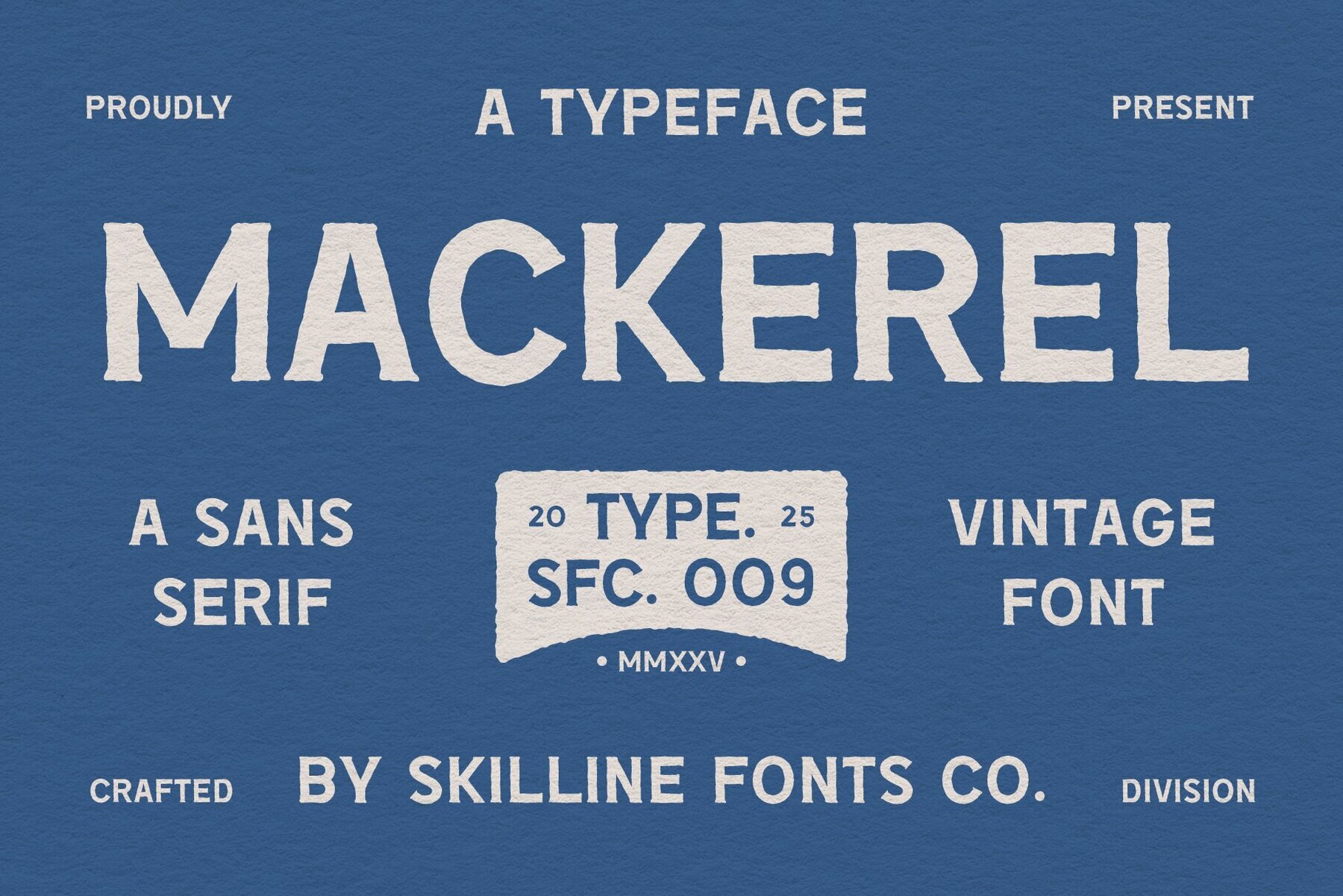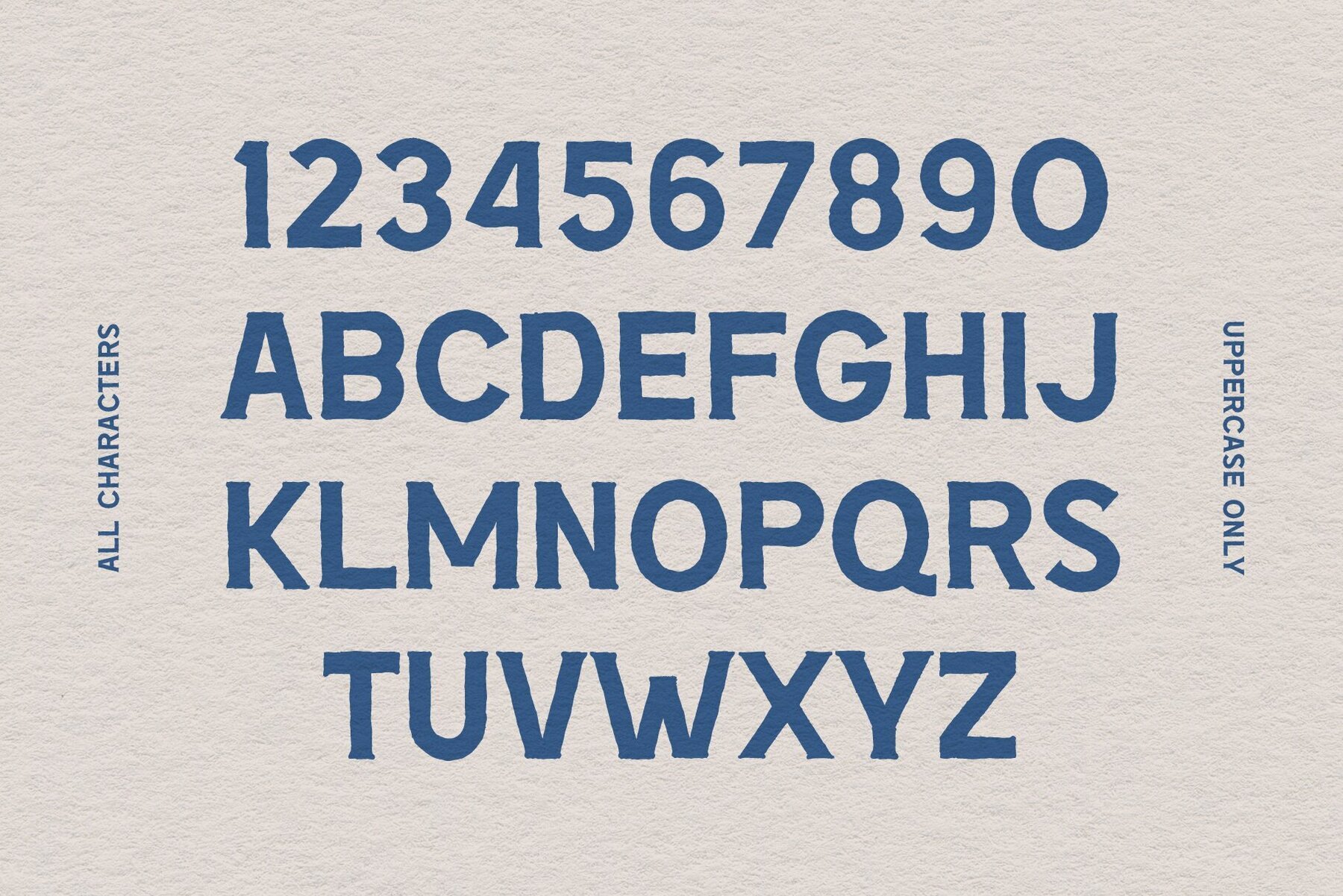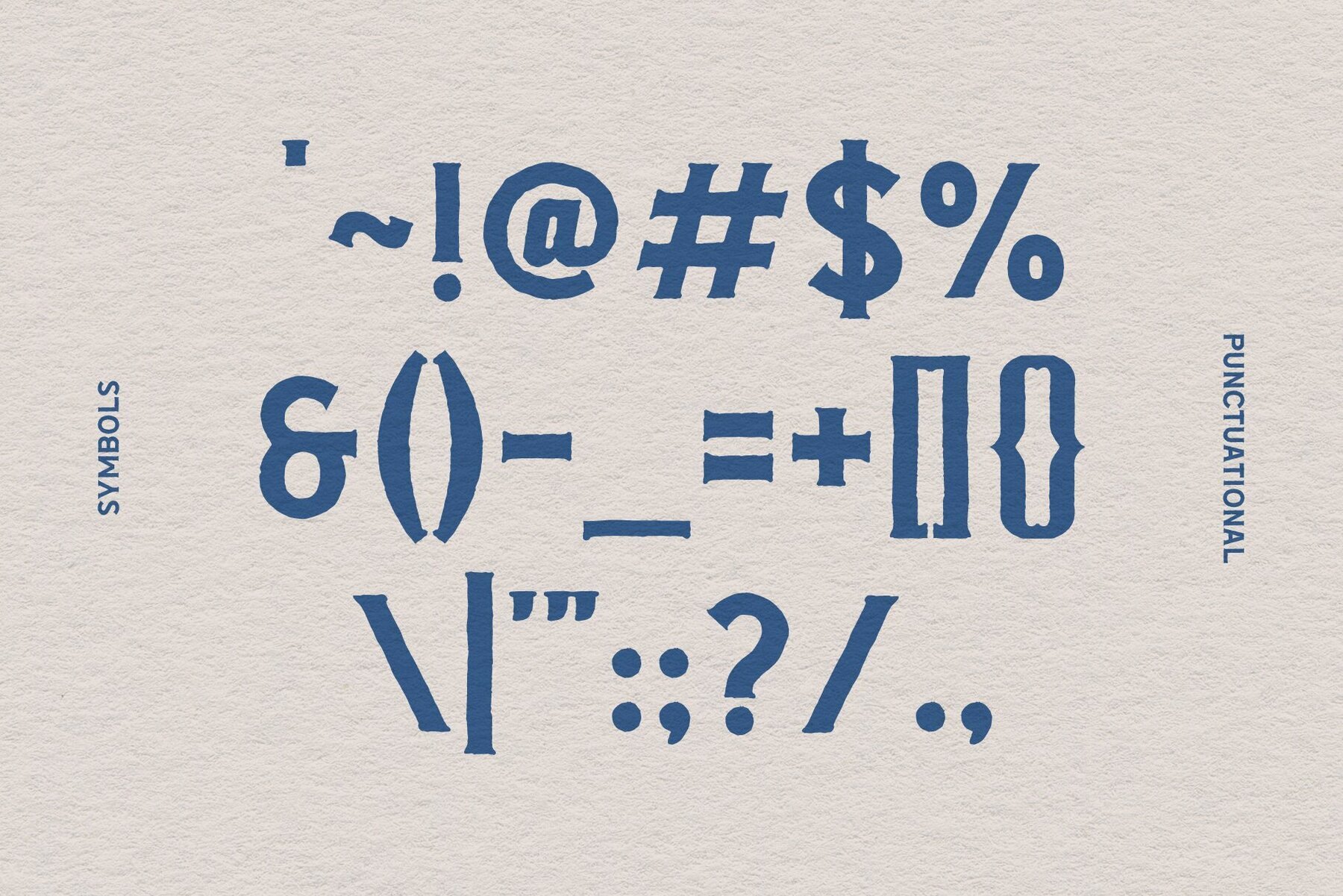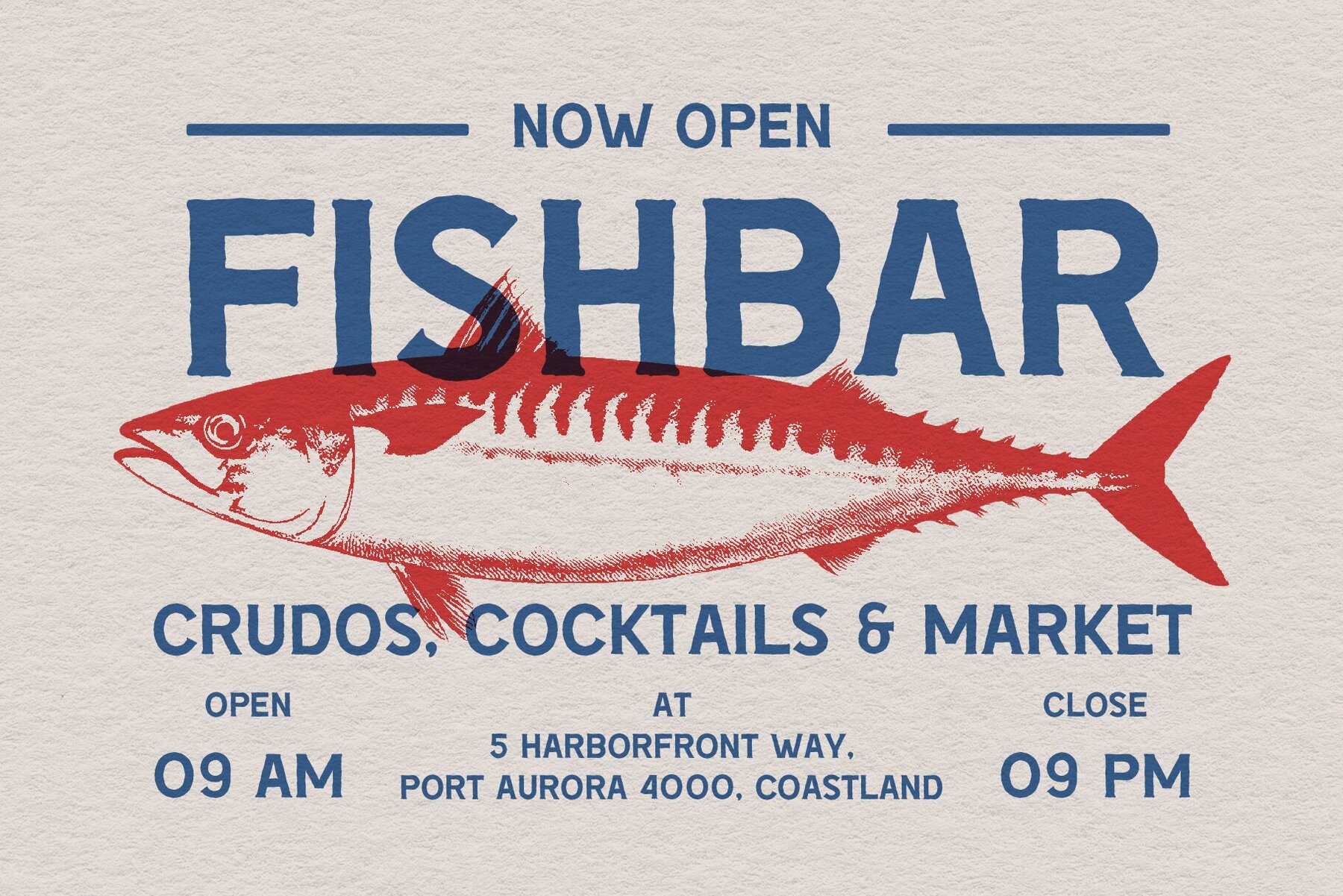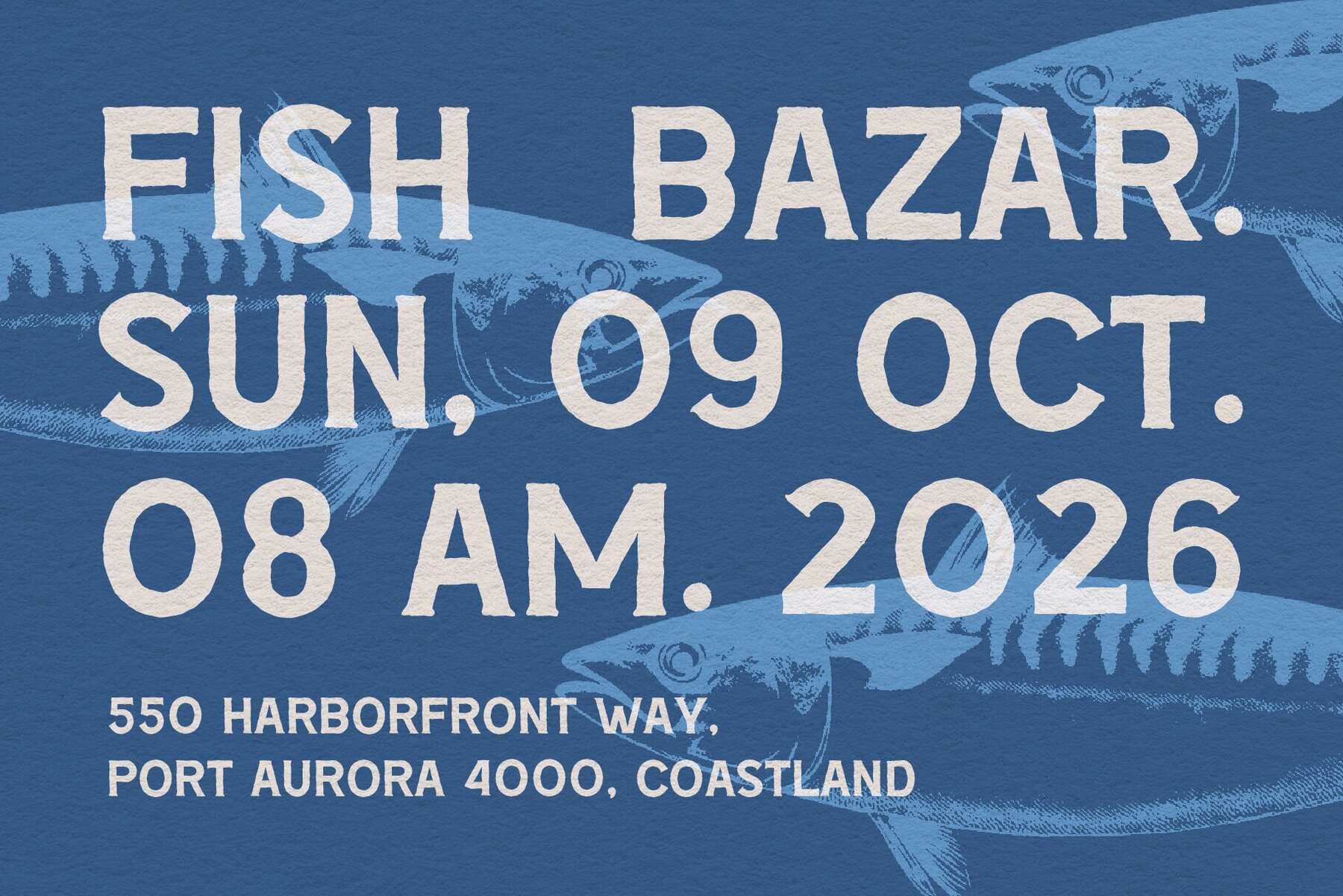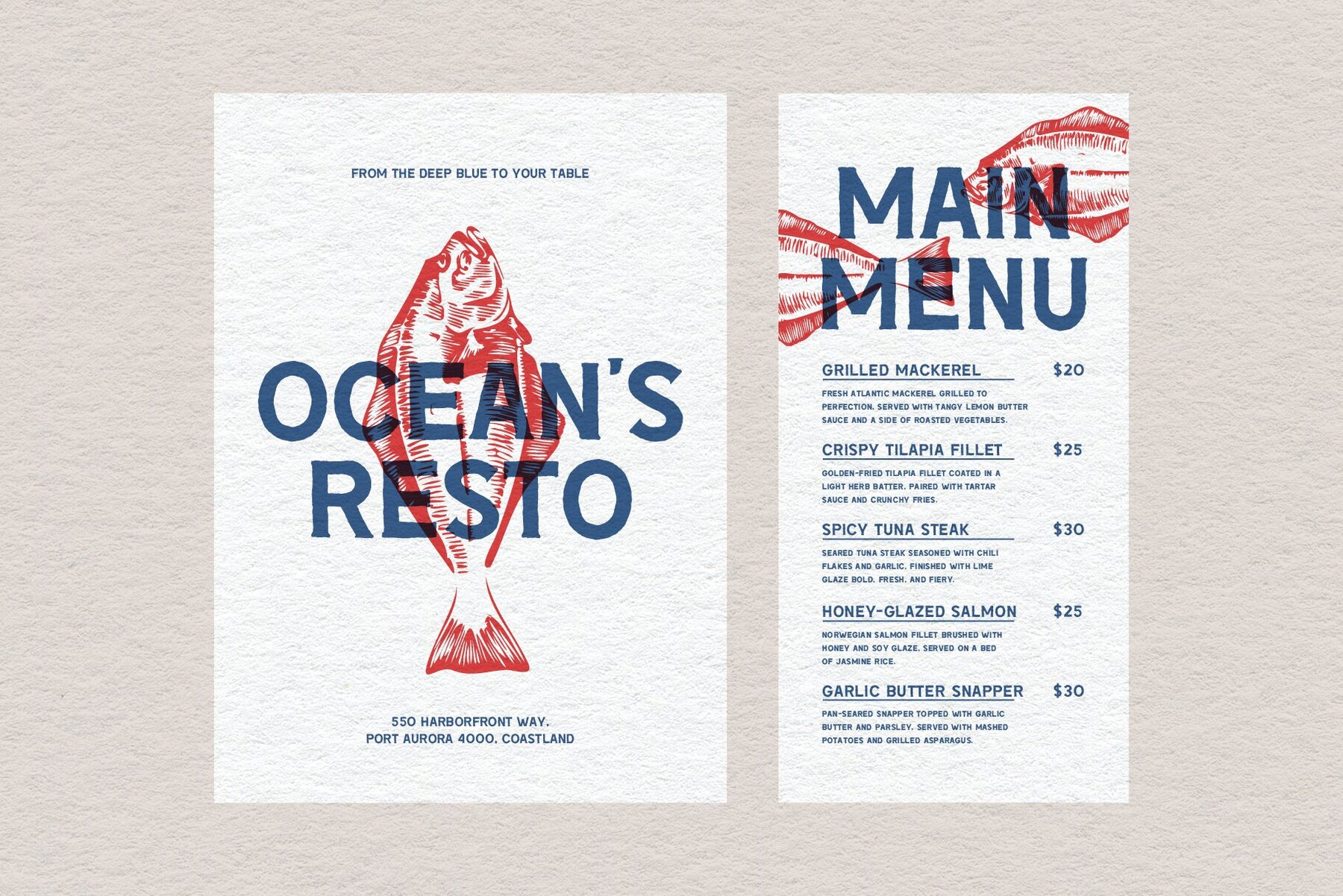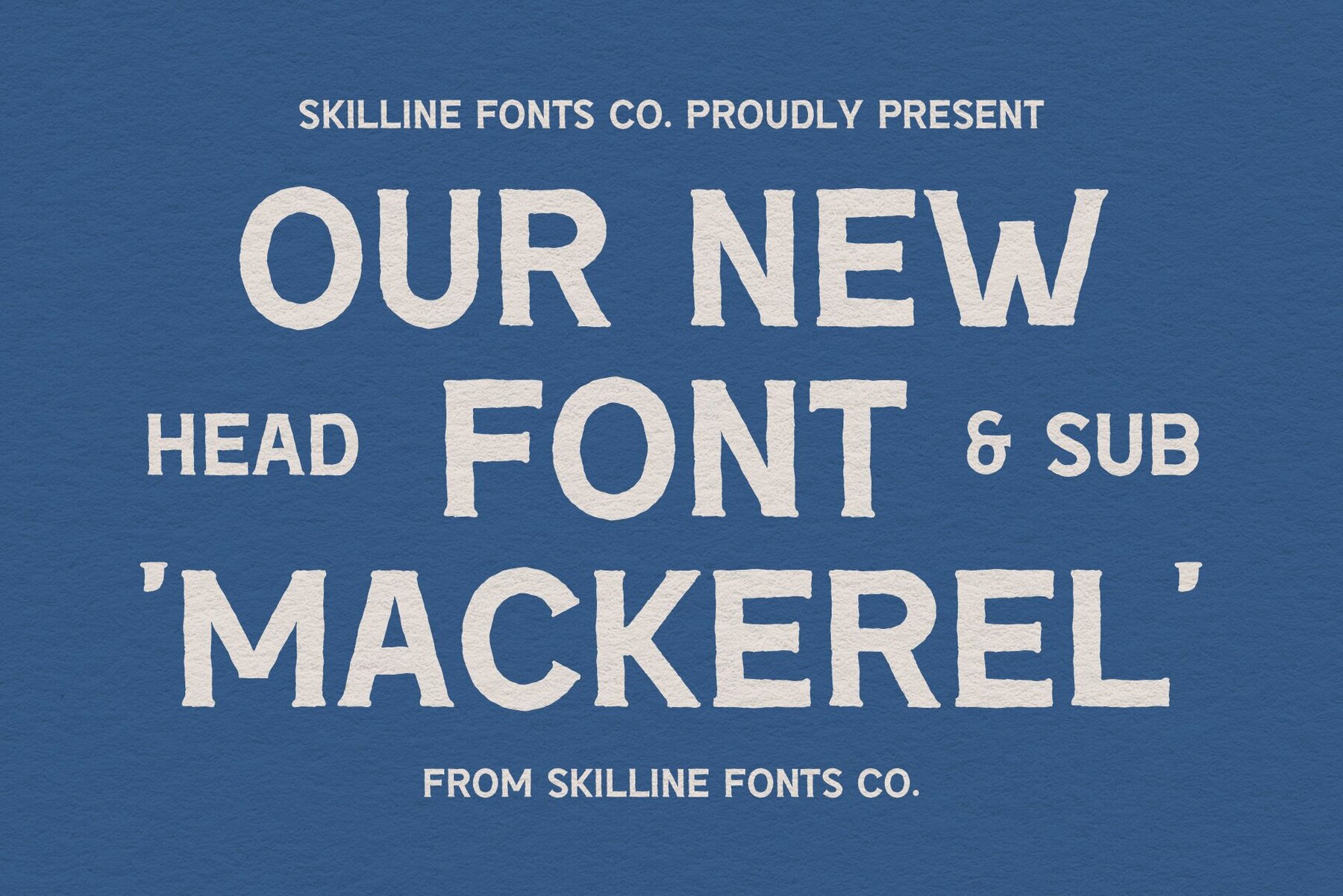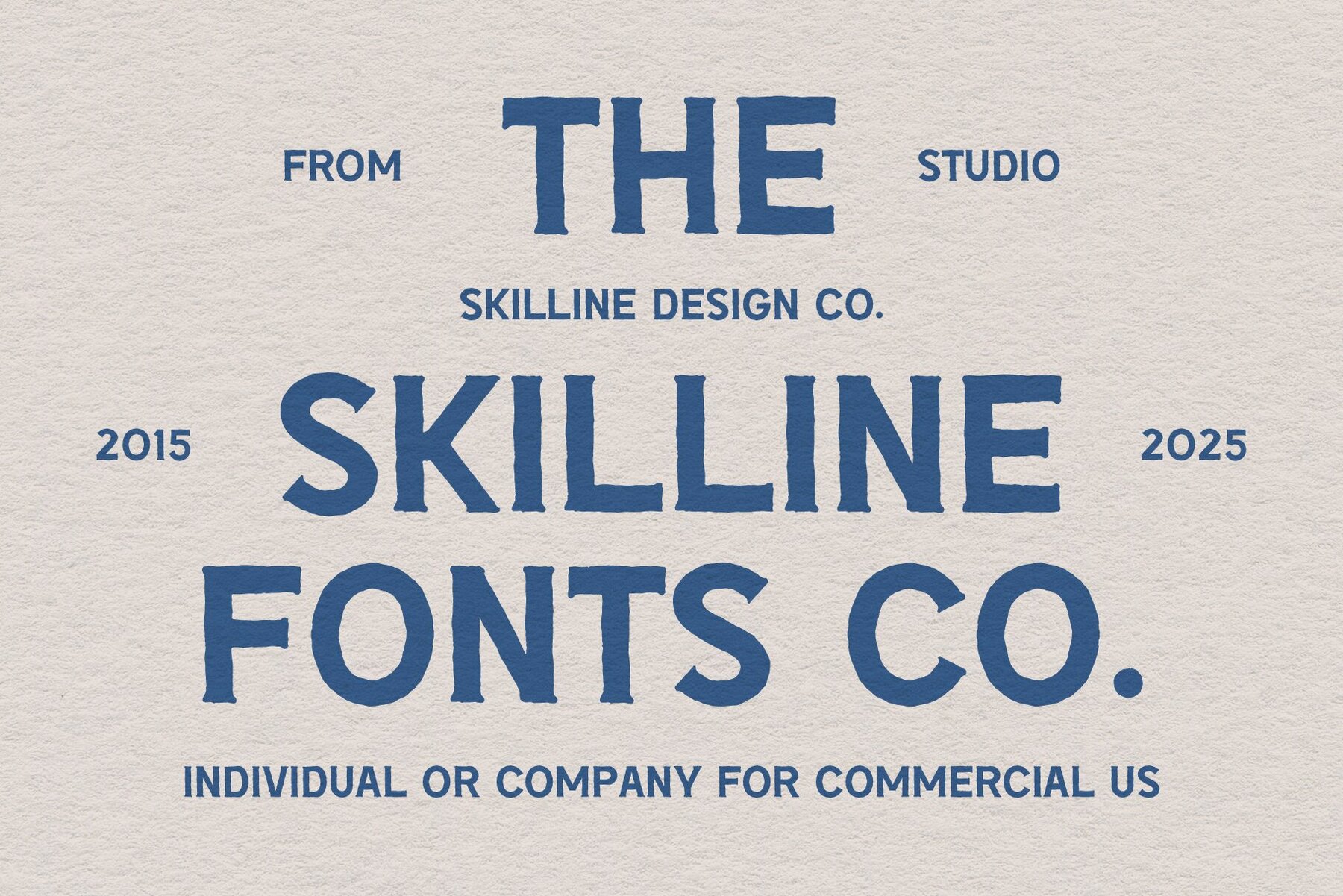
Mackerel Font
SFC Mackerel
Mackerel is a striking vintage sans serif typeface that embodies the strength and authenticity of traditional hand-painted lettering. With its blend of clean geometry and organic texture, it introduces a warm, human touch to contemporary design. The handcrafted edges and subtle imperfections imbue projects with rugged character while ensuring enduring readability. Rooted in mid-century signage, maritime design, and classic branding, Mackerel excels in logos, packaging, apparel, and editorial layouts. Its robust, all-caps framework guarantees clarity and impact, with textured details that add depth to any composition. Mackerel offers exceptional versatility, seamlessly transitioning across print and digital mediums—perfect for brands that prioritize craftsmanship, simplicity, and a hint of nostalgia.Mackerel: Bold Vintage Sans Serif Typeface